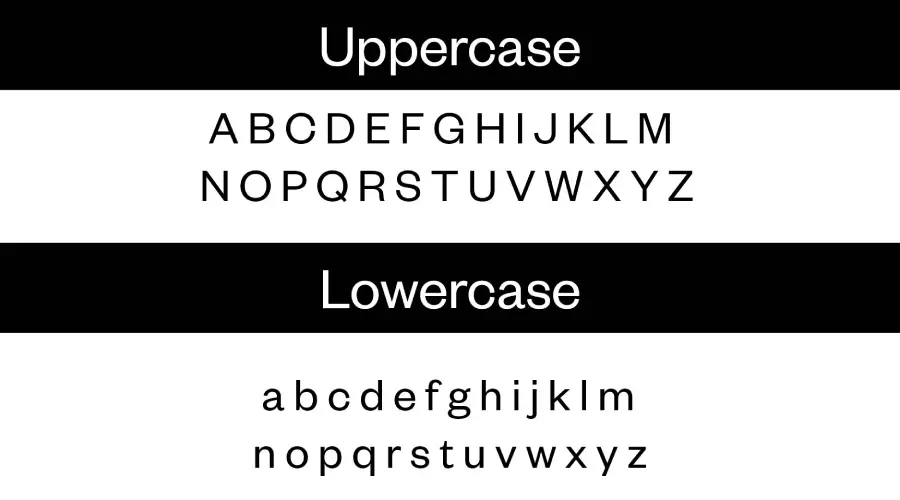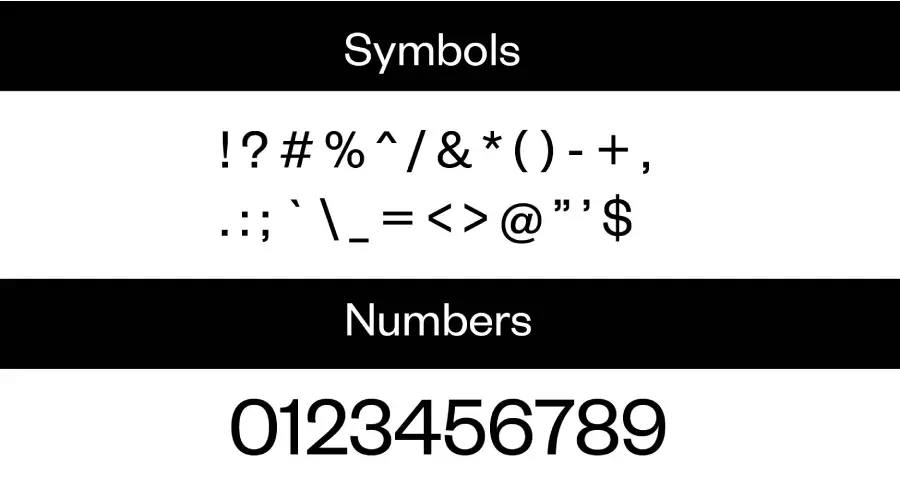
Founders Grotesk Font
Kris Sowersby of the New Zealand-based Klim Type Foundry developed Founders Grotesk, a grotesque sans-serif typeface. Classic grotesques from the early twentieth century impacted the design. One of the unique features of Founders Grotesk is its extremely tiny aperture. Founders Grotesk is not a strict revival typeface. Instead, it combines the greatest elements from previous centuries’ grotesques into a broad family intended for modern printing.
Founders Grotesk Font View
Founders Grotesk is a stylish and contemporary typeface. It may be found in packaging, branding, apparel, and phrases, amongst other places. It’s a wonderful idea to put it on your website or in titling animations.
Certain designers have used this typeface in their portfolios, presentations, artwork, and instructional videos.